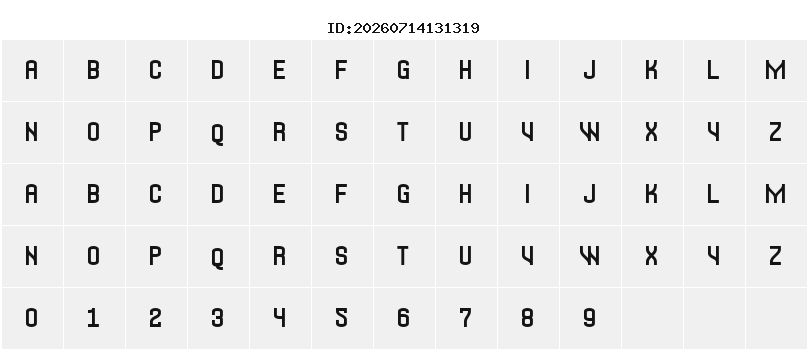
Hardy Preview
• Font Name: Hardy
• Full Font Name: Hardy
About Hardy.ttf
Hardy.ttf is a modern, elegant sans-serif font designed for ultimate readability and visual harmony. Perfect for branding, headlines, web design, and print materials.